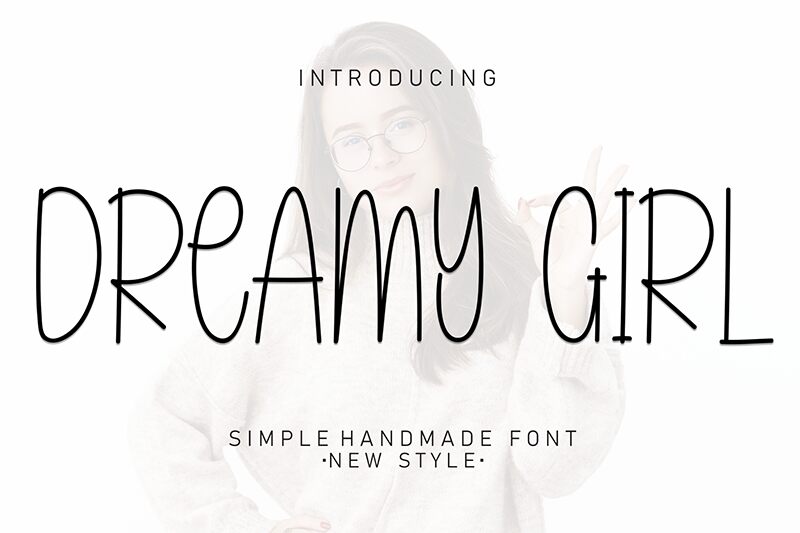
Dreamy Girl font
Dreamy Girl
This is a sweet and friendly handwritten display font. Cute and fun, this font is perfect for creating wedding invitations, cards, or any other design that could benefit from a playful touch!